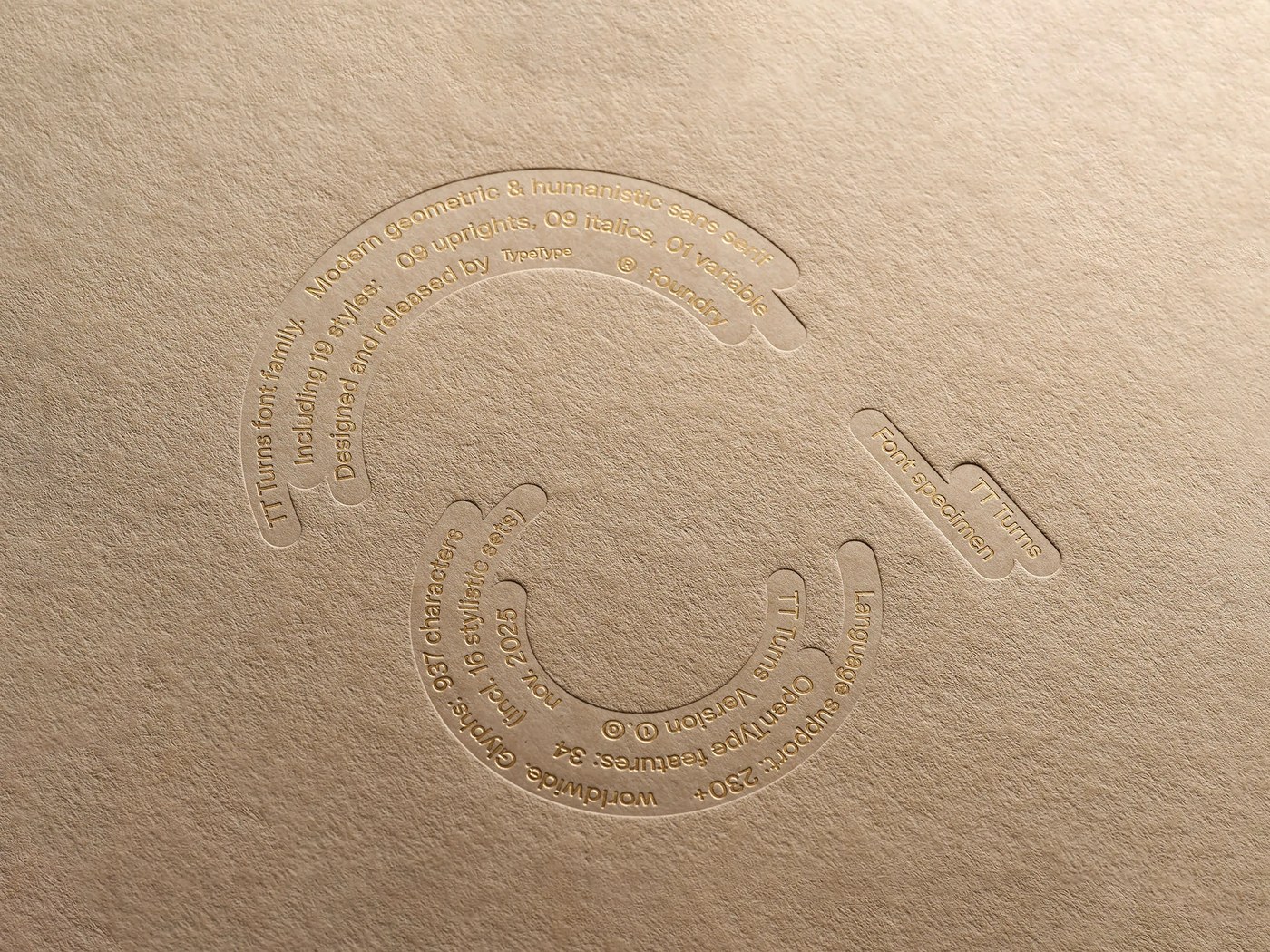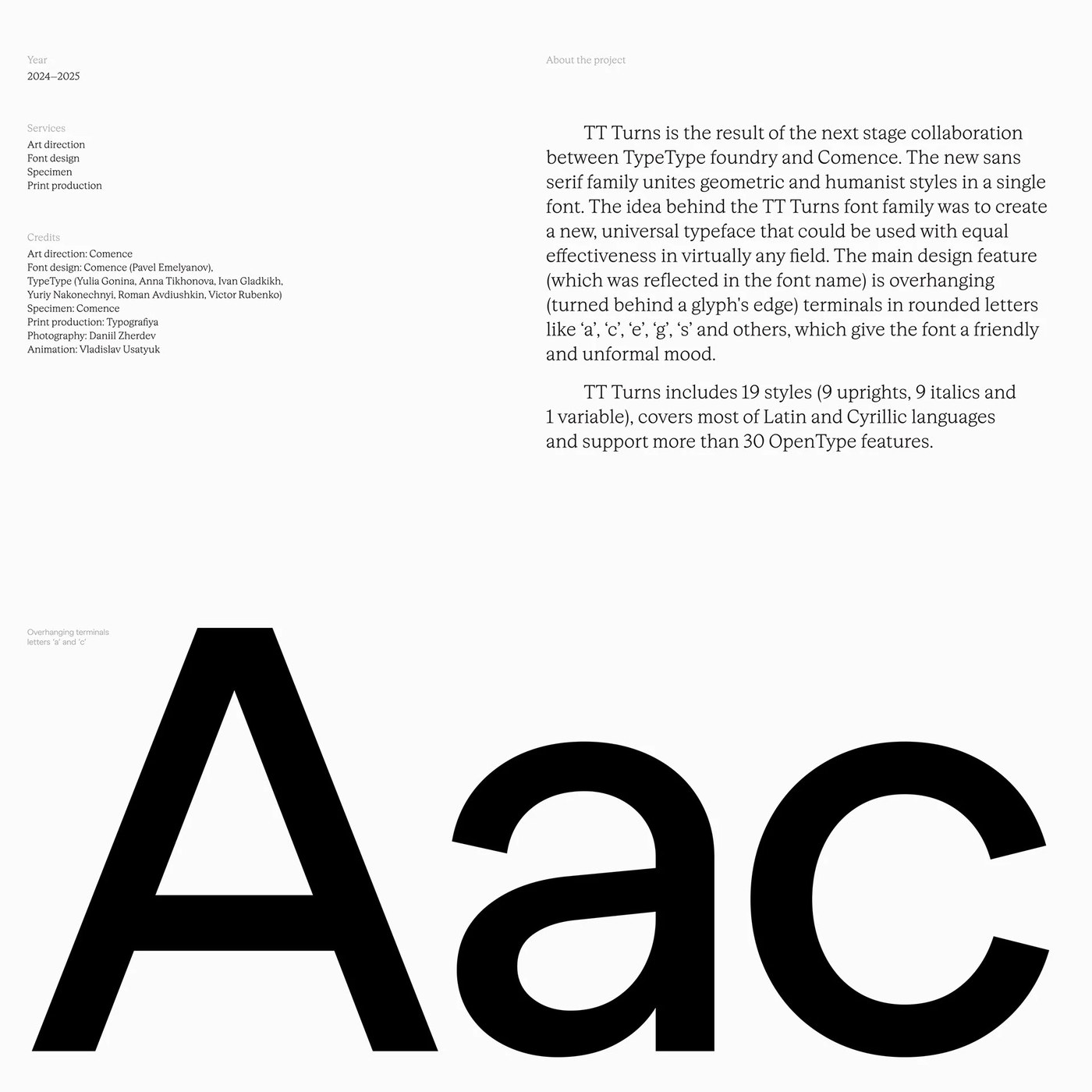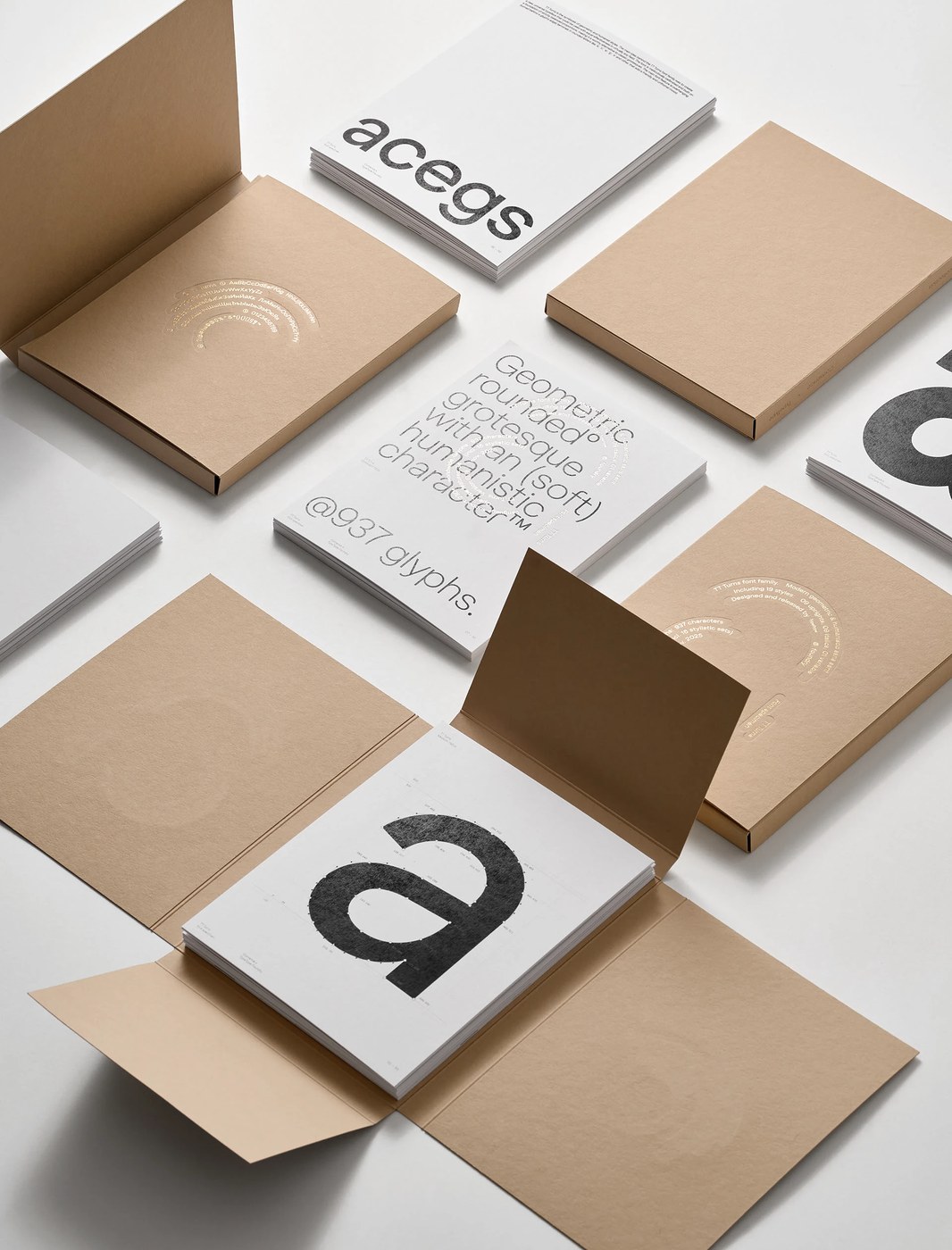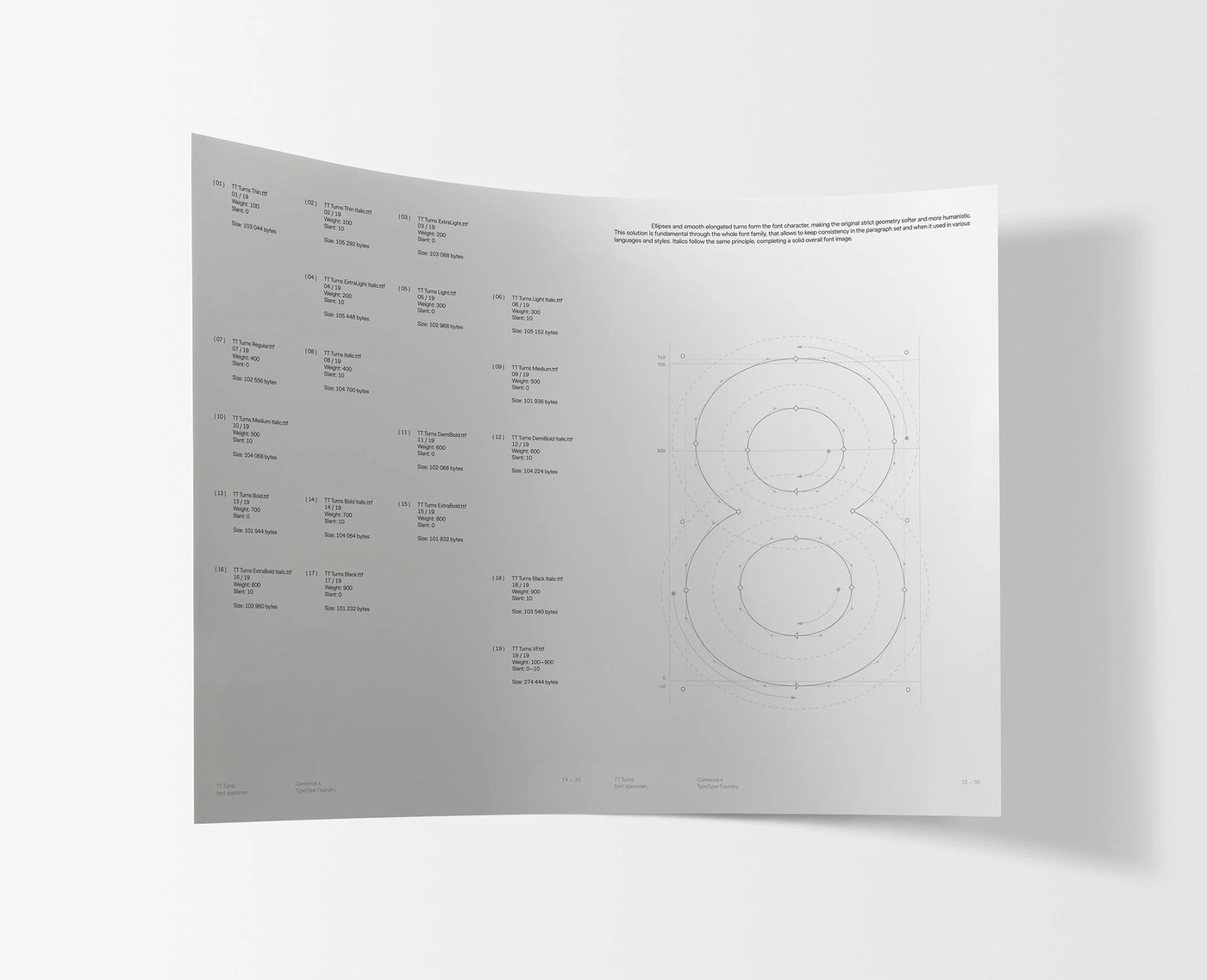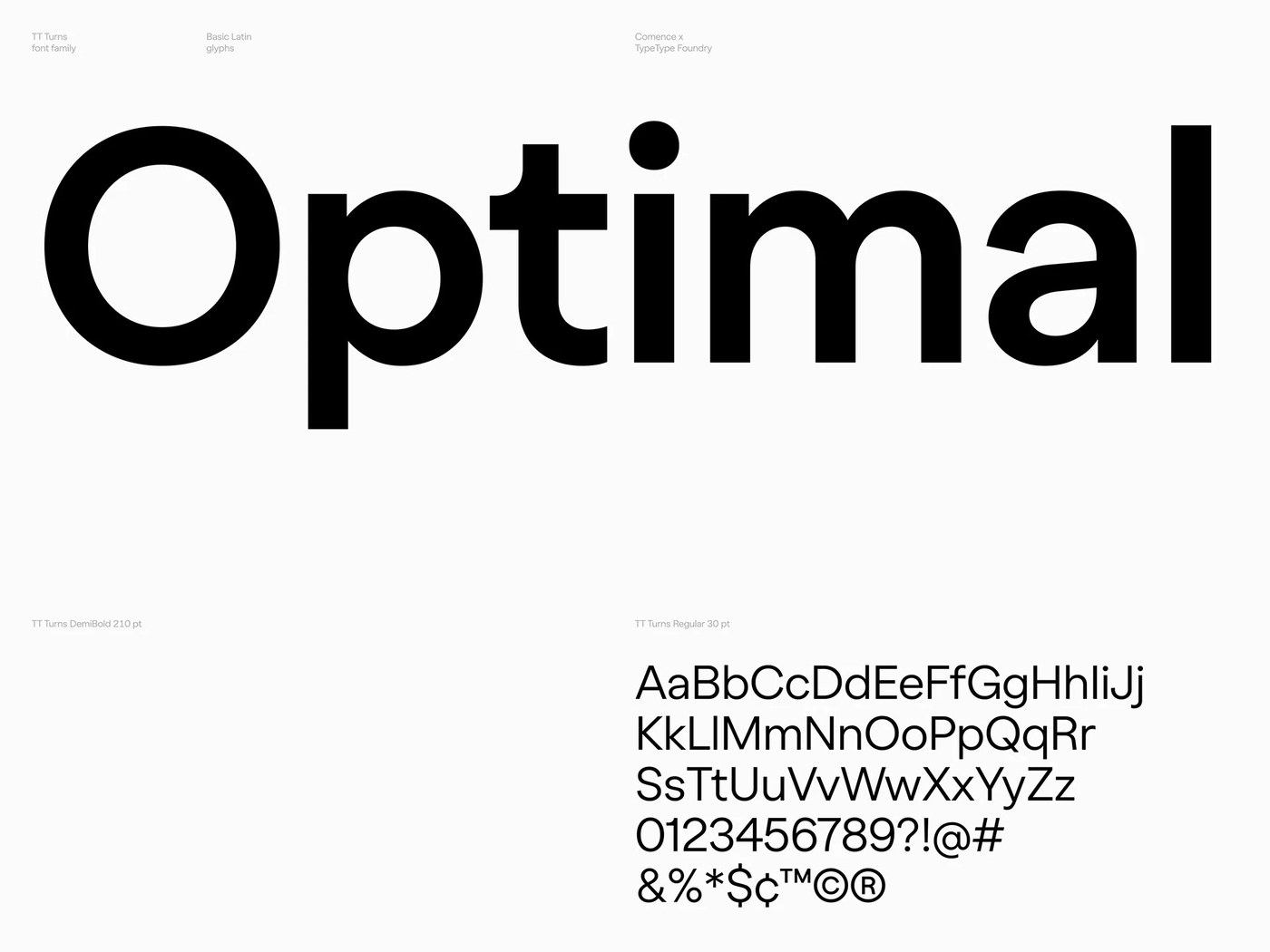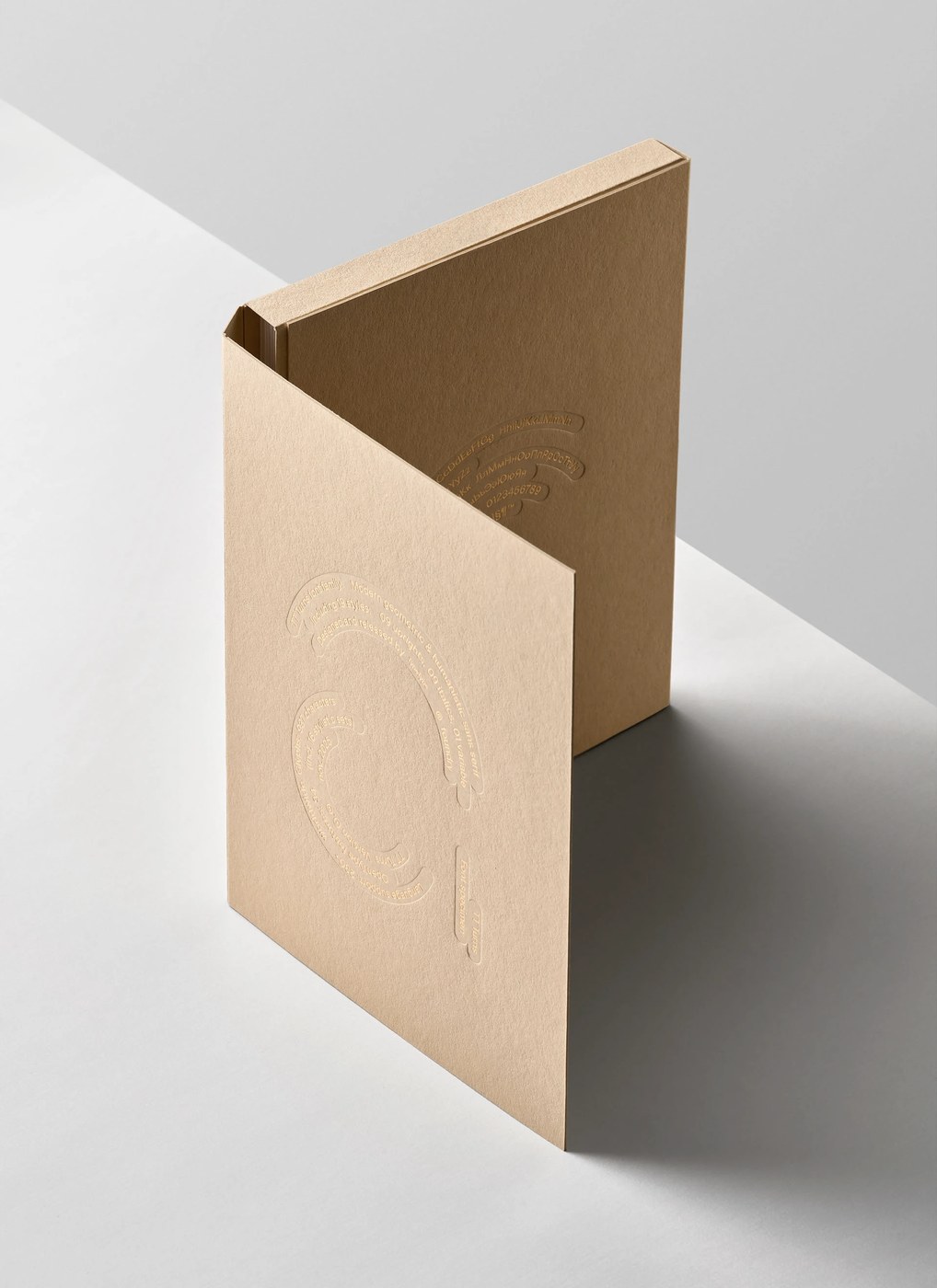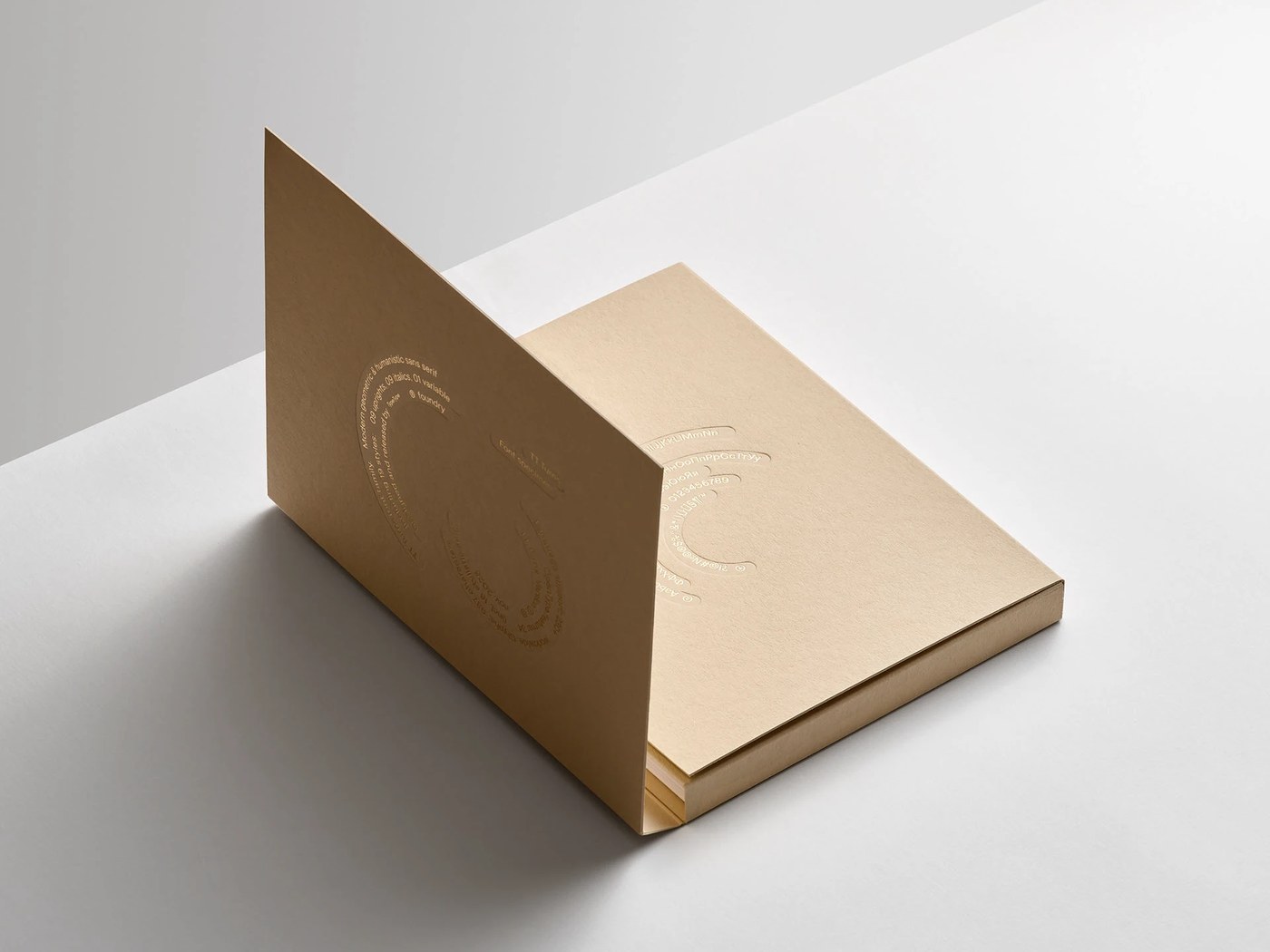
Sans serif typeface specimen rounded variable font: TT Turns and the Logic of Structural Terminals
The sans serif typeface specimen rounded variable font TT Turns forms a balance.
Pavel Emelyanov designs a clear layout. Turned terminals serve as the main visual signature. The detail gives the character set a distinct look. It does not lose utility.
Every letter shape shows clean baseline alignment and geometric restraint. The modular grids support nineteen distinct styles across a unified weight axis. This structural hierarchy ensures clean reading at any scale. The turned curves introduce visual rhythm into standard layout designs.
High Contrast in a Sans Serif Typeface Specimen Rounded Variable Font
The kraft paper specimen emphasizes the raw texture of warm stock and black ink. This tactile contrast draws attention to letterform construction rather than styling. The character shapes hold their strength across Latin and Cyrillic scripts. The turned terminals remain consistent across all glyphs.
This design relies on pure ease. Each letter has a clear task. The lines look natural and smooth. The font works well for books and screen displays. It has no extra parts. It focuses on core forms. This choice makes the system safe and strong.
The layout utilizes generous negative space to establish strong compositional tension. This structural choice frames the letterforms with extreme care. The visual weight remains balanced. Each glyph holds its position within the layout. The result is a highly neat typographic system.
The book shows the print clearly. The pages look clean. The ink is dark. The stock is thick. The type is neat. The work is good. The shapes look fine. The grid is flat. The lines are thin. The layout is simple. It fits all needs. It works well.